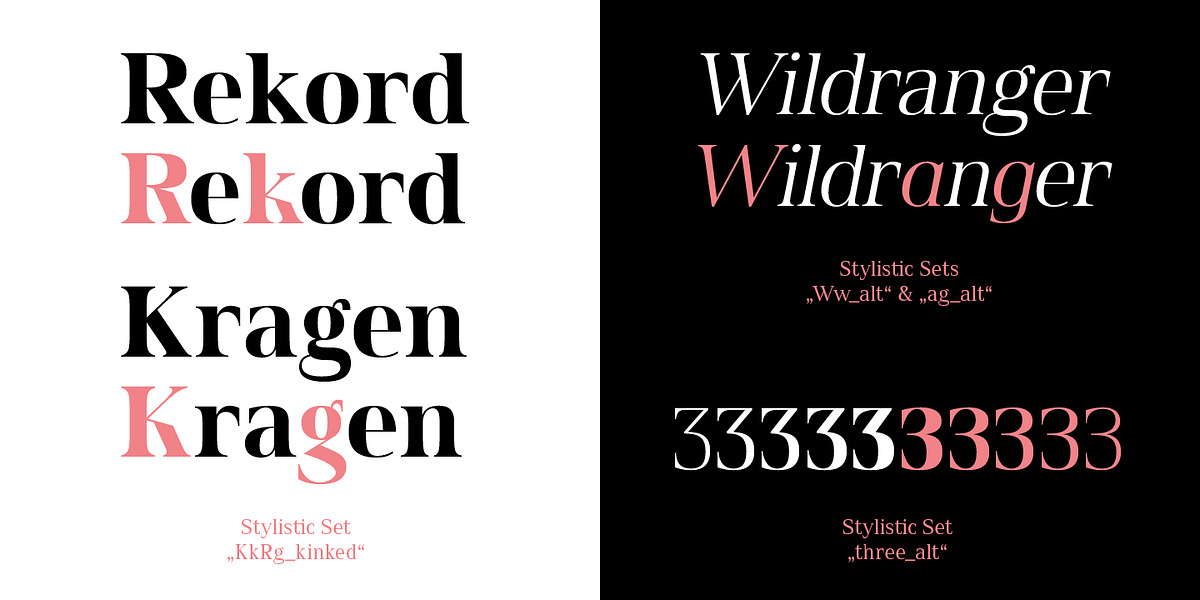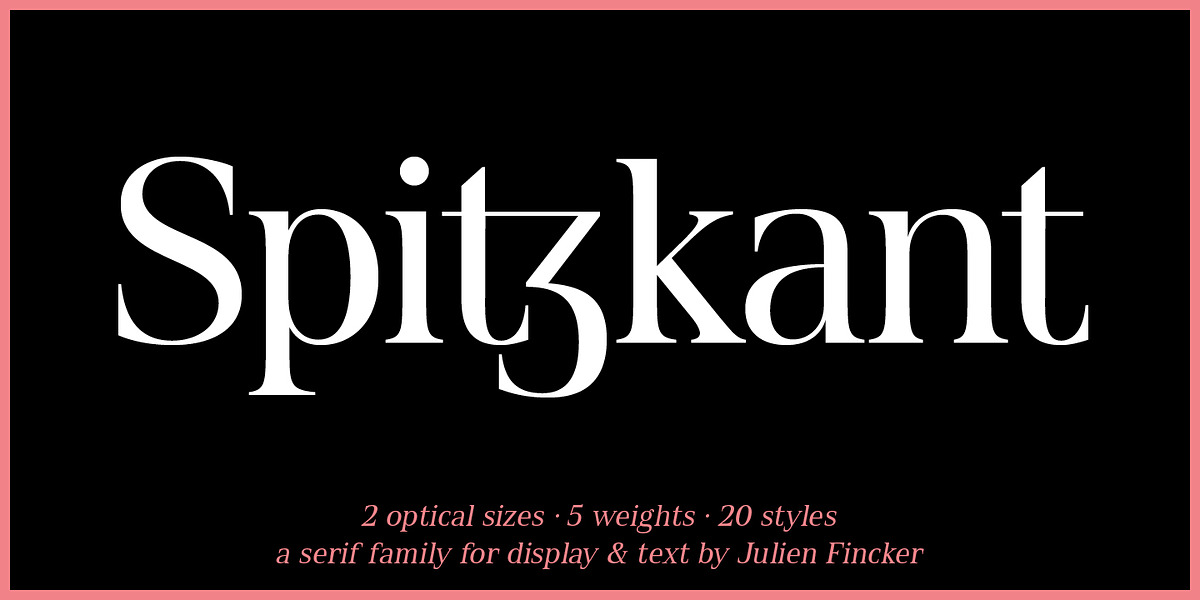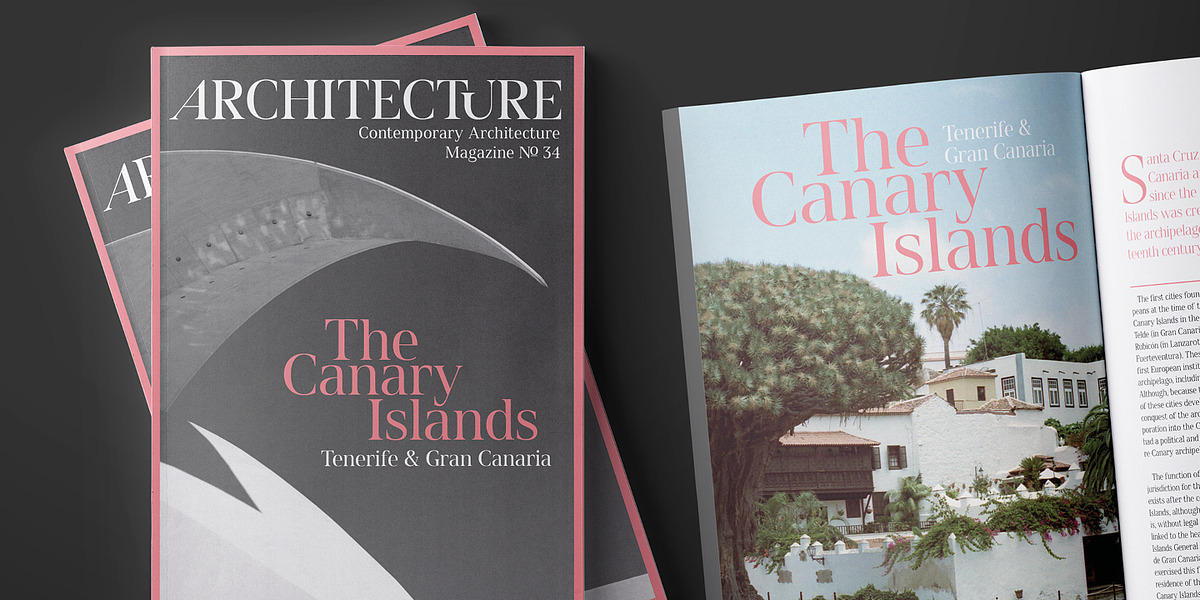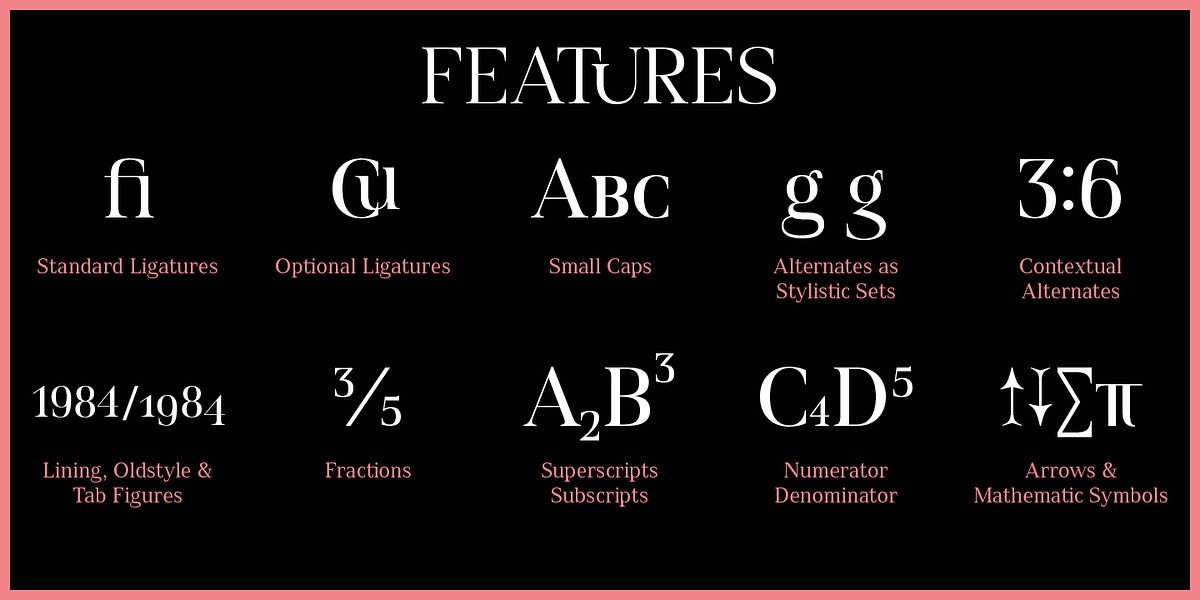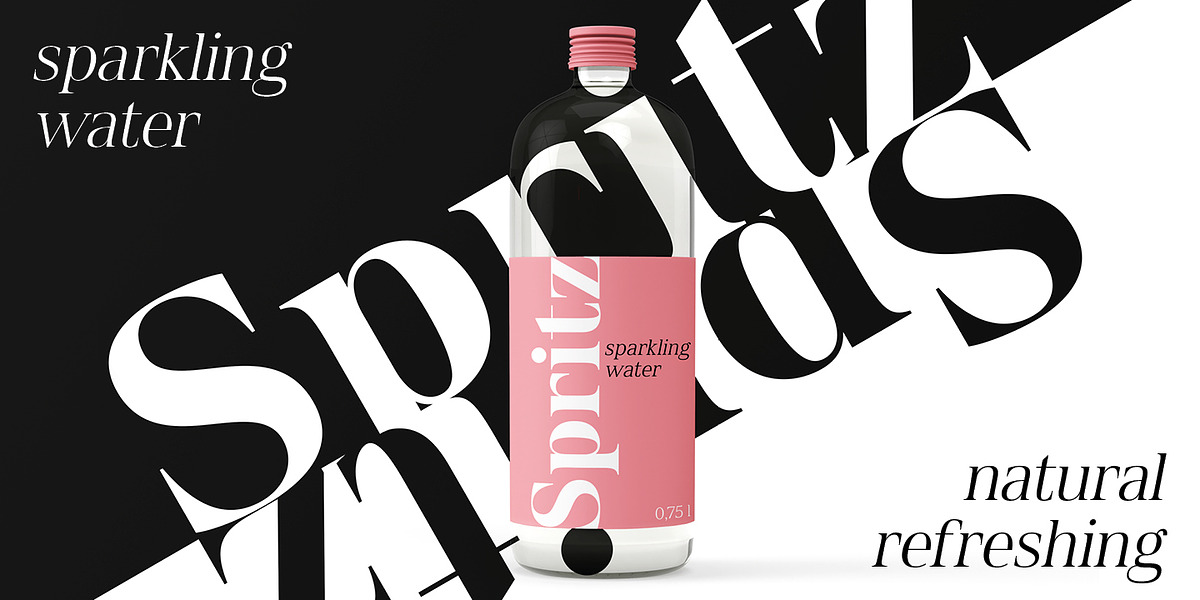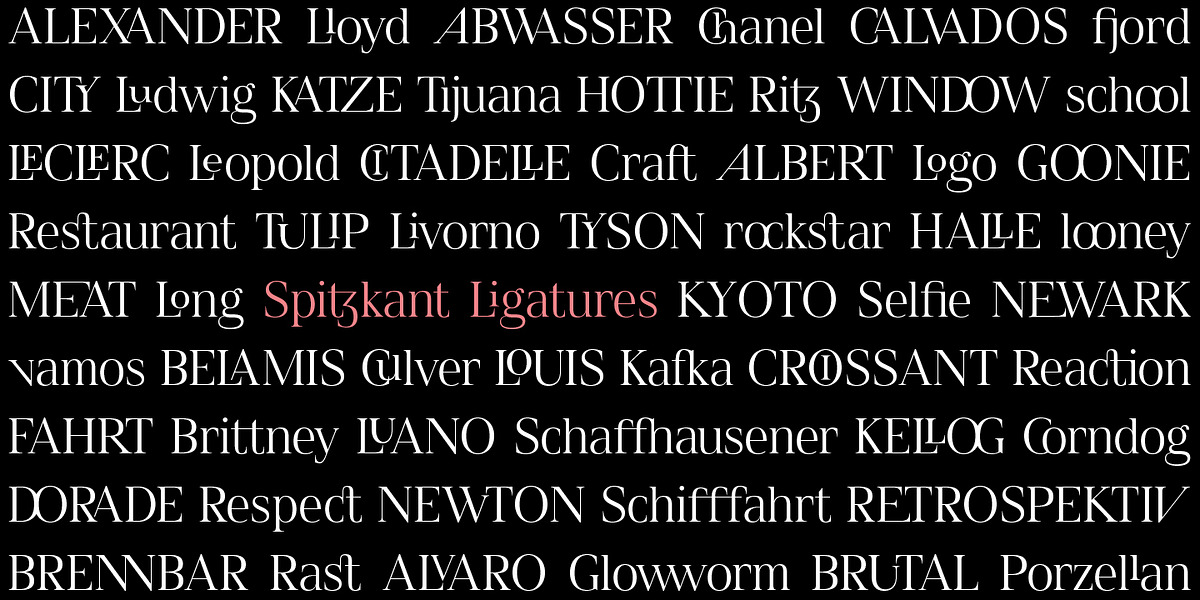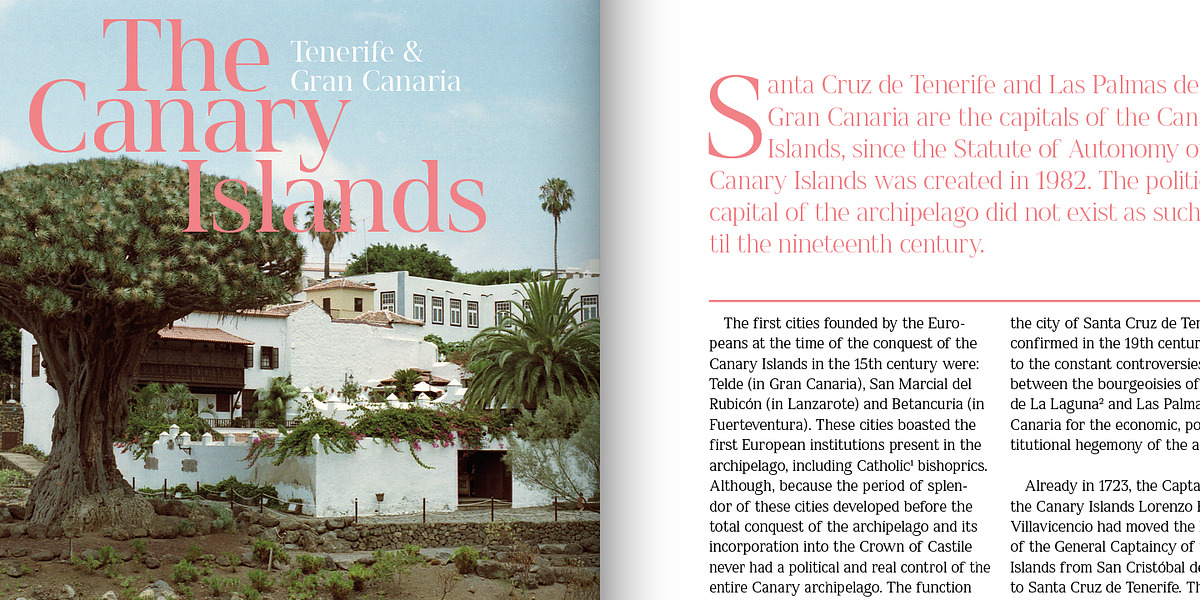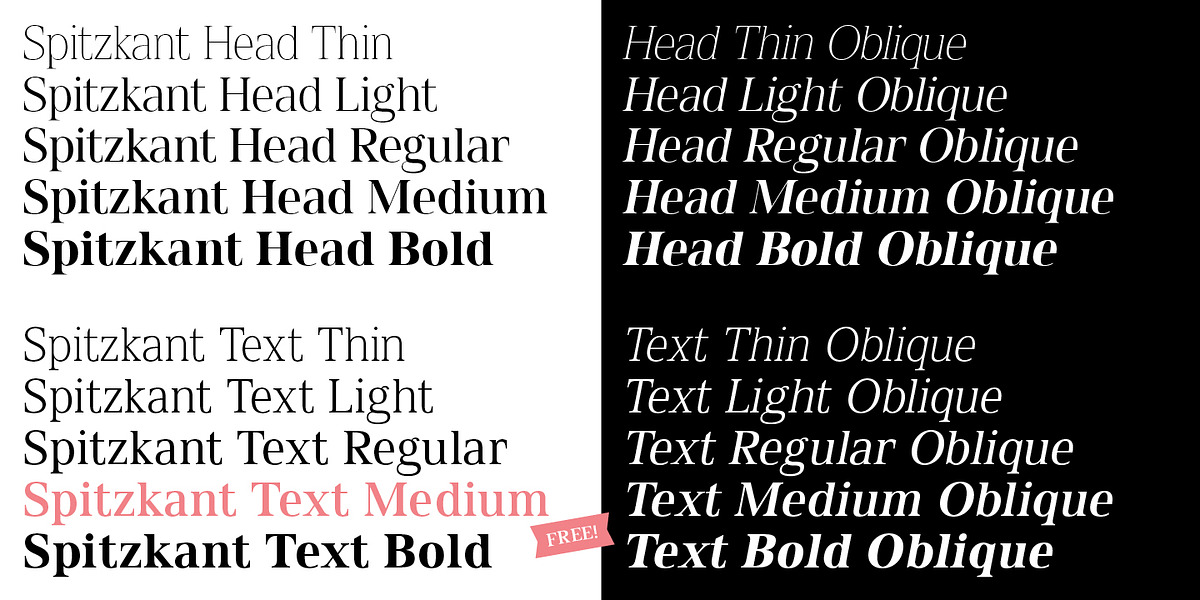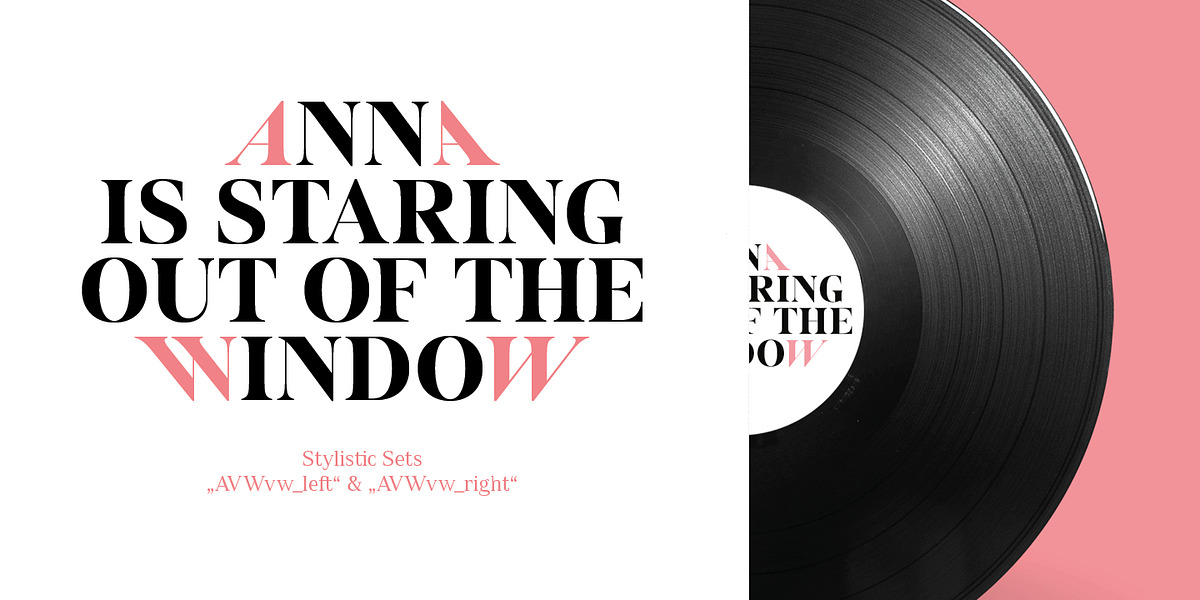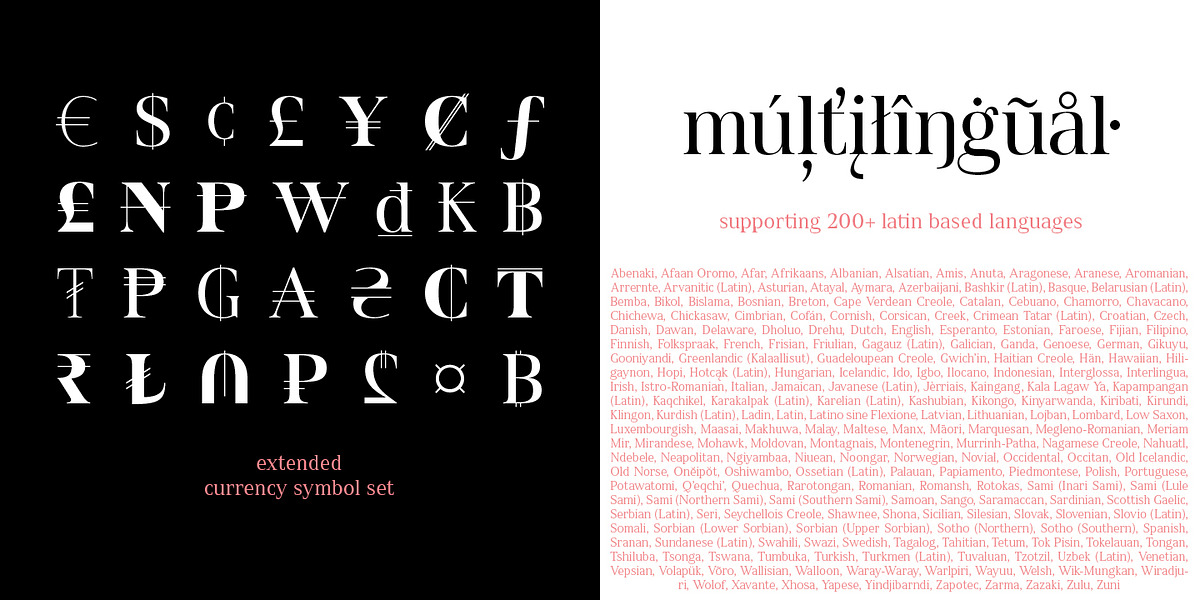
Spitzkant
Spitzkant is a versatile transitional serif typeface designed for both impact and readability. Its defining feature is the strong contrast between pointed, sharp serifs and rounded forms, creating a unique and expressive visual identity. The font family includes a high-contrast display version for striking headlines and a lower-contrast text version for extended body copy. With multiple weights, italics, and over 850 characters supporting numerous languages, Spitzkant is well-suited for branding, editorial design, packaging, advertising, and various other applications requiring a touch of elegance and boldness.